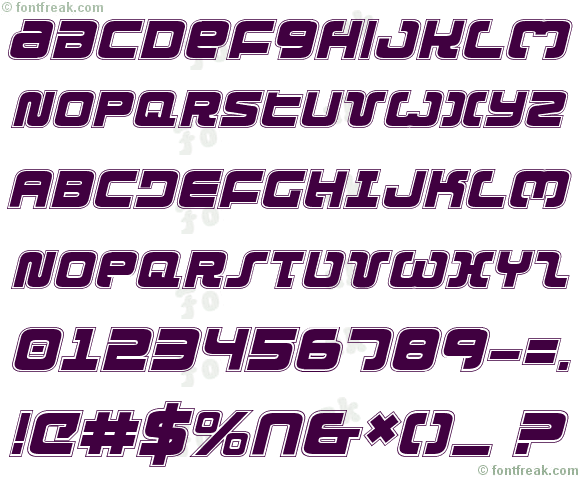
Exedore College Italic
Exedore Italic
Exedore Rotalic
Exedore Expanded Italic
Exedore College
Exedore 3D
Exedore 3D Italic
Exedore Condensed
Exedore Laser
Exedore Laser Italic
Exedore Leftalic
Exedore
Exedore Expanded
Exedore Condensed Italic
Exedore Laser Exp Italic
Exedore, designed by Iconian Fonts, is a striking display typeface that stands out in the realm of contemporary typography. This font is categorized as a condensed, italic typeface, featuring a unique blend of 3D effects and a laser-like precision that makes it visually compelling. The strokes are bold and consistent, with minimal contrast, ensuring legibility while also imparting an air of modernity. The spacing is tight, contributing to its compact appearance, while the distinct characteristics of the font give it an energetic vibe suitable for various design applications.
Exedore is particularly effective for use in college-themed projects, lending a fresh and dynamic look to promotional materials. It shines in the development of movie posters, where its boldness can capture attention and convey excitement. Additionally, this font works wonderfully for restaurant menus, providing a contemporary twist that can help a dining establishment stand out. Graphic designers and content creators will also find Exedore invaluable for branding projects, as its distinctive style can help convey a strong visual identity.
The target audience for the Exedore font includes graphic designers, small business owners, and content creators who seek to make a lasting impression with their work. Whether used in print or digital media, this font provides an engaging solution for anyone looking to elevate their designs.
What truly sets Exedore apart is its ability to merge functionality with flair. The combination of its condensed structure and 3D elements creates a unique visual experience that captures the viewer's attention. With the Exedore font free download available, designers can easily incorporate this captivating typeface into their projects, ensuring that their work is not only effective but also visually stunning.